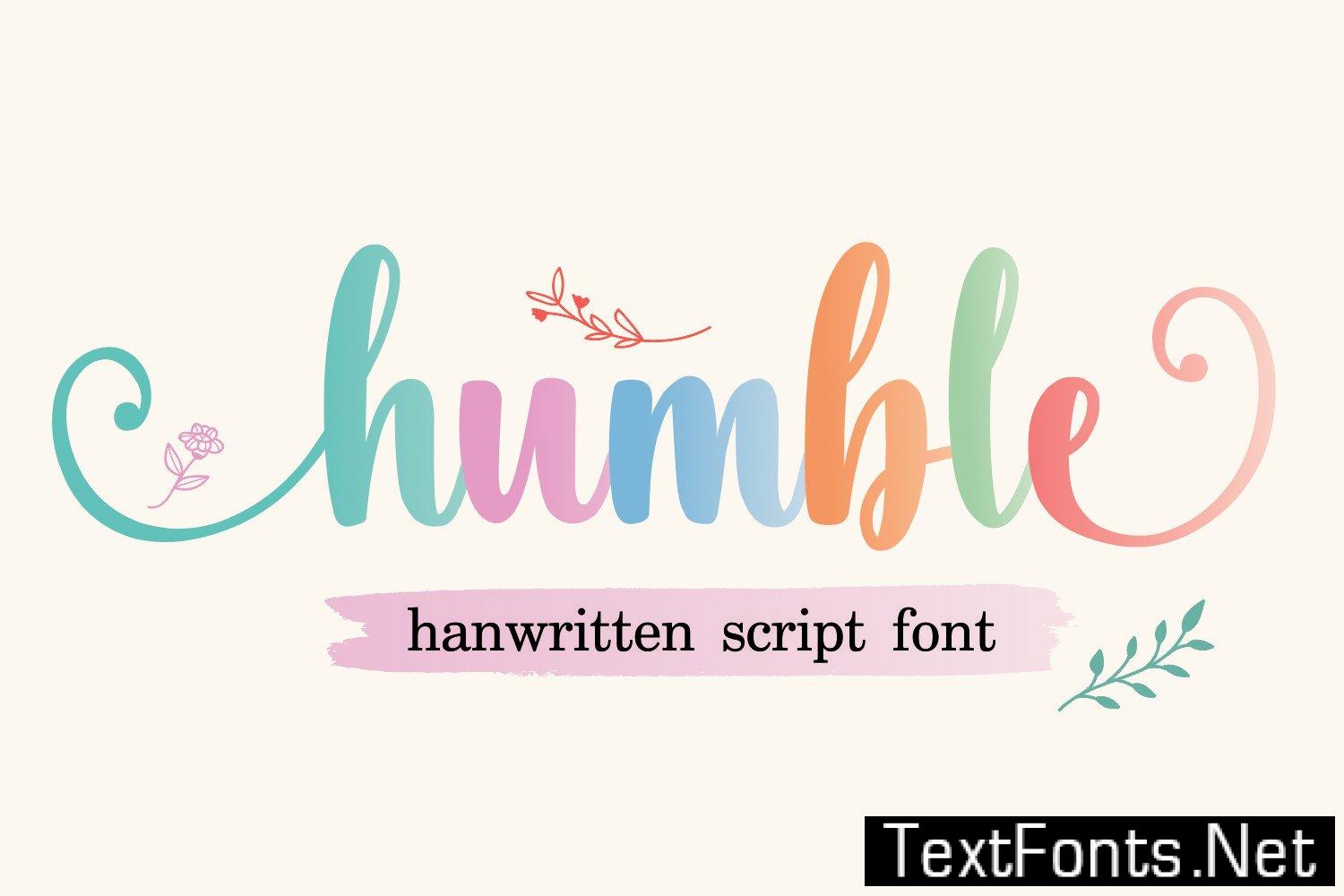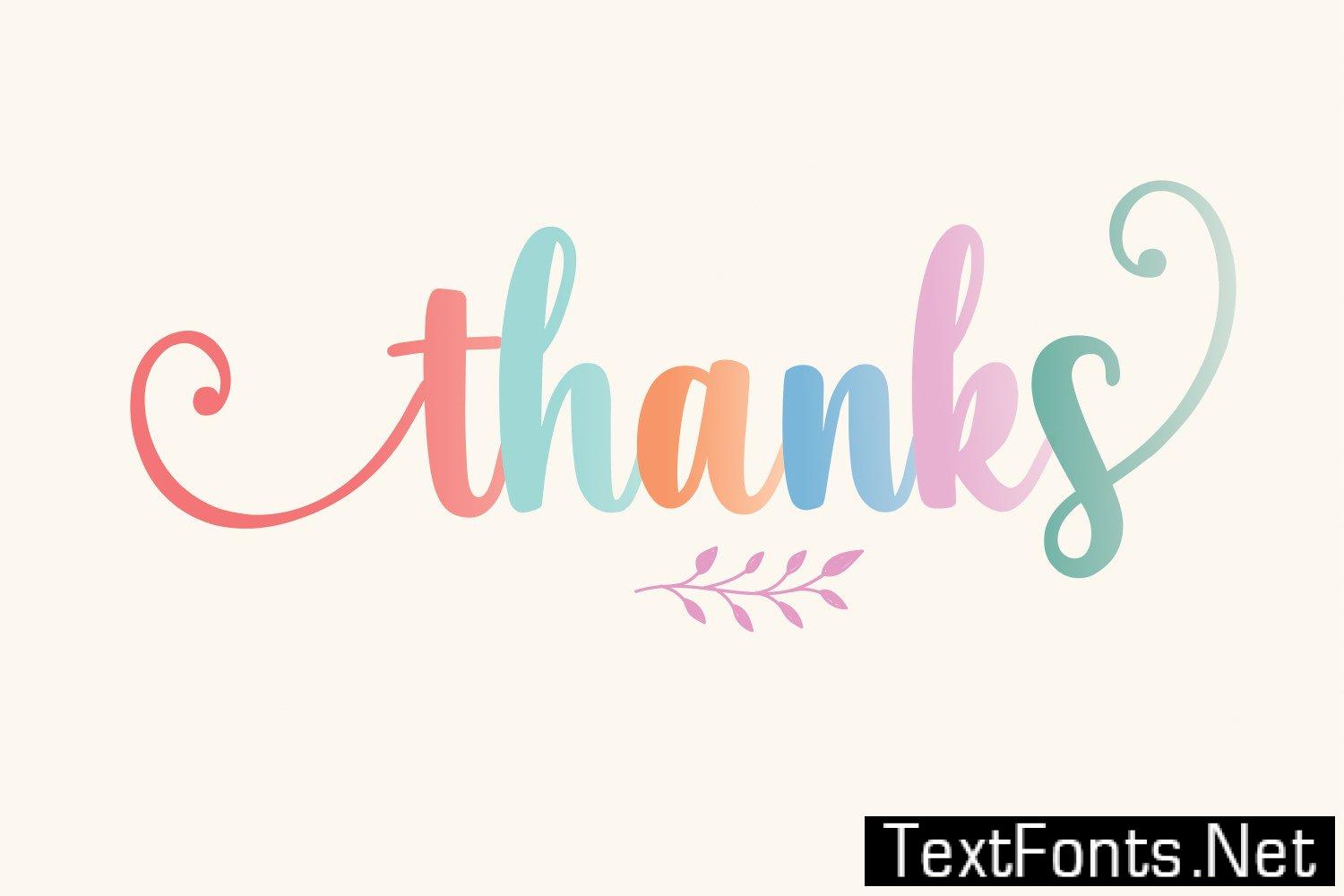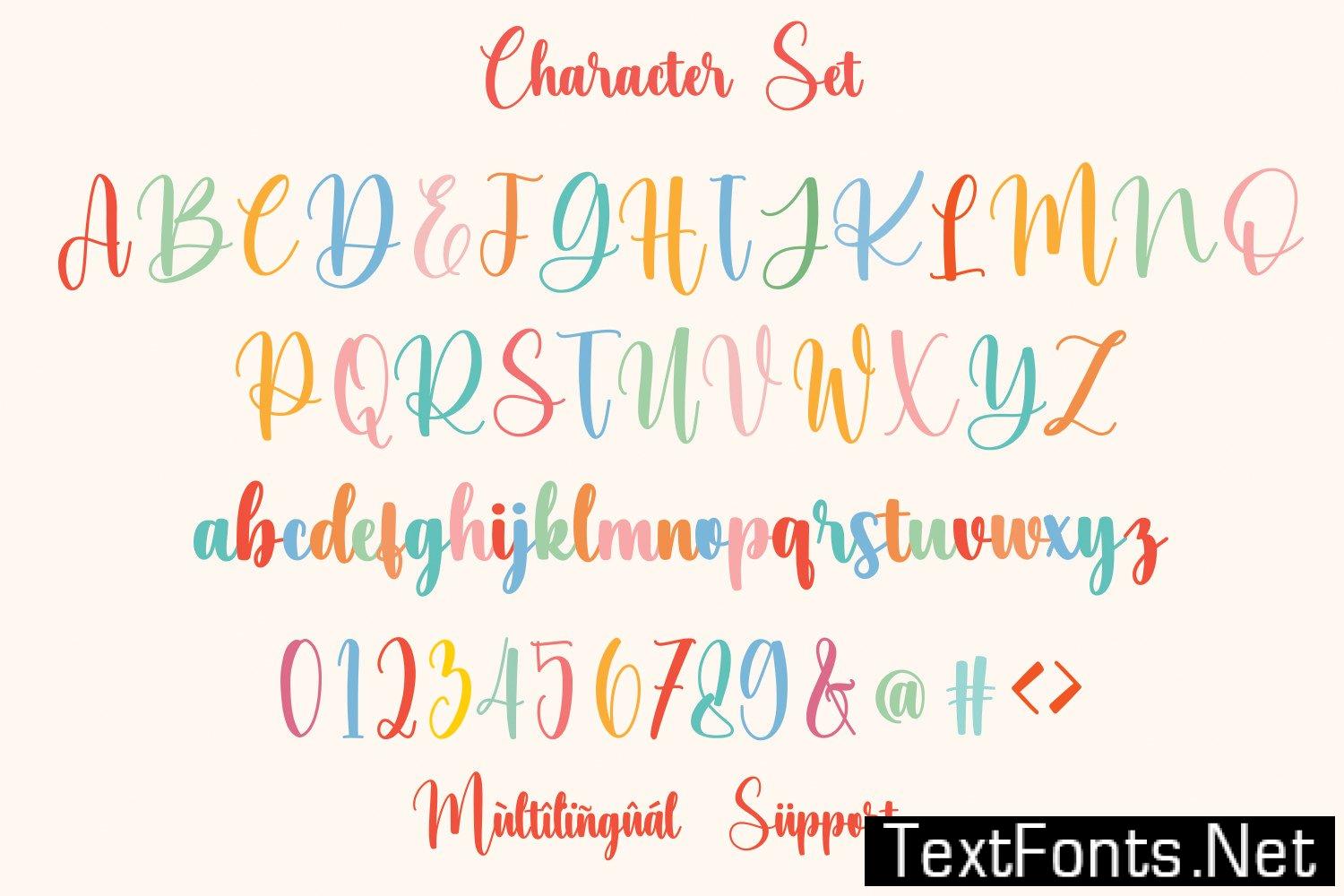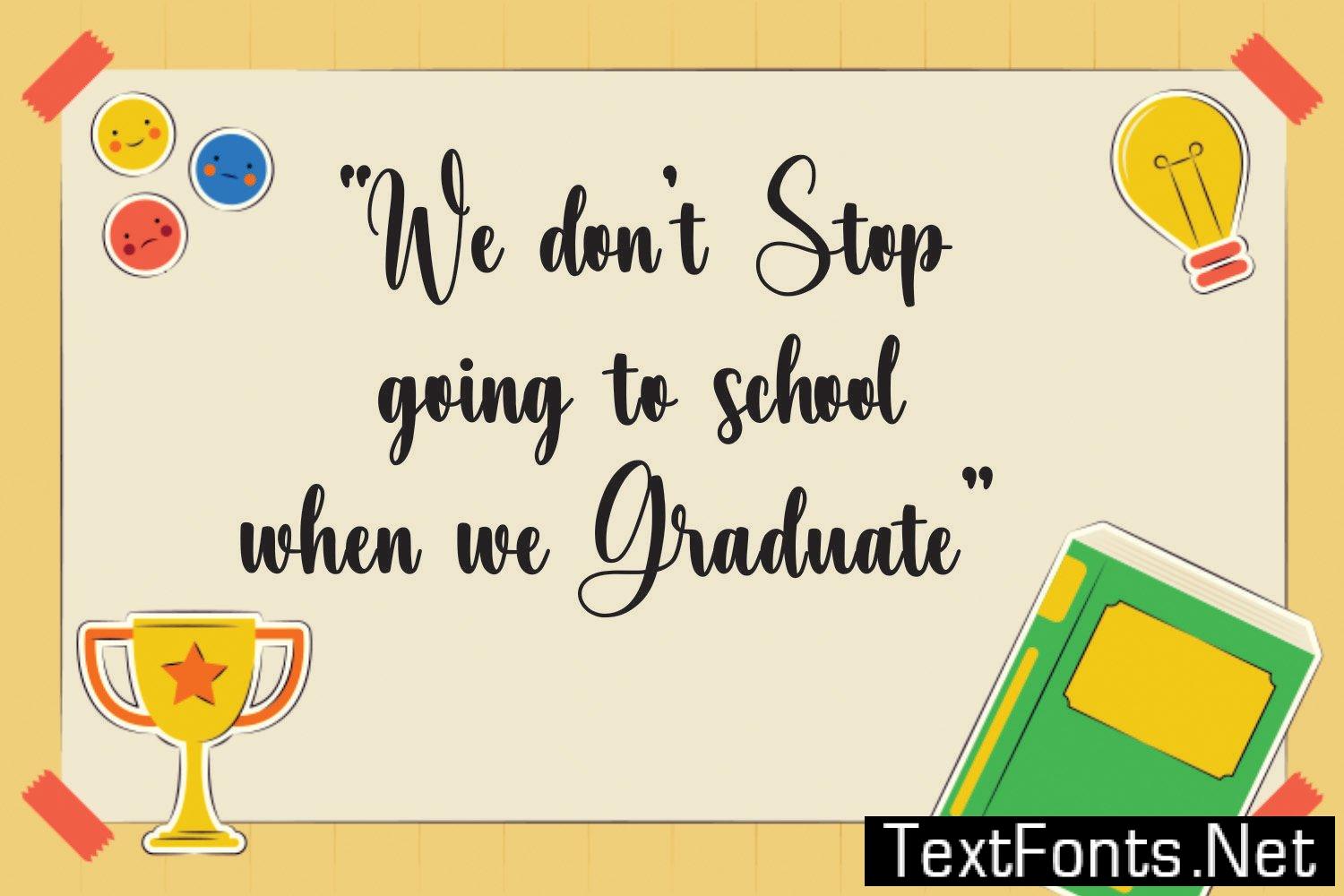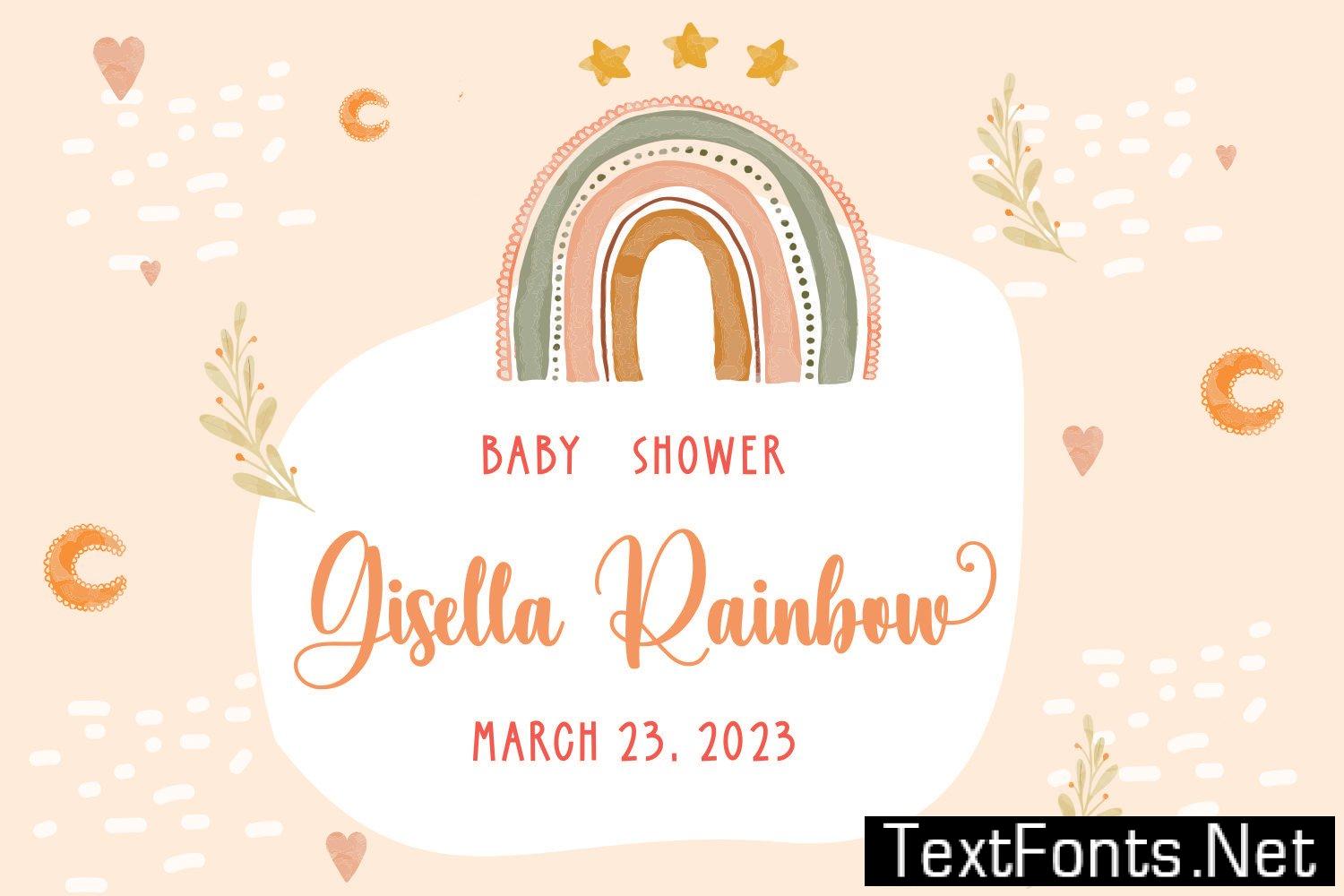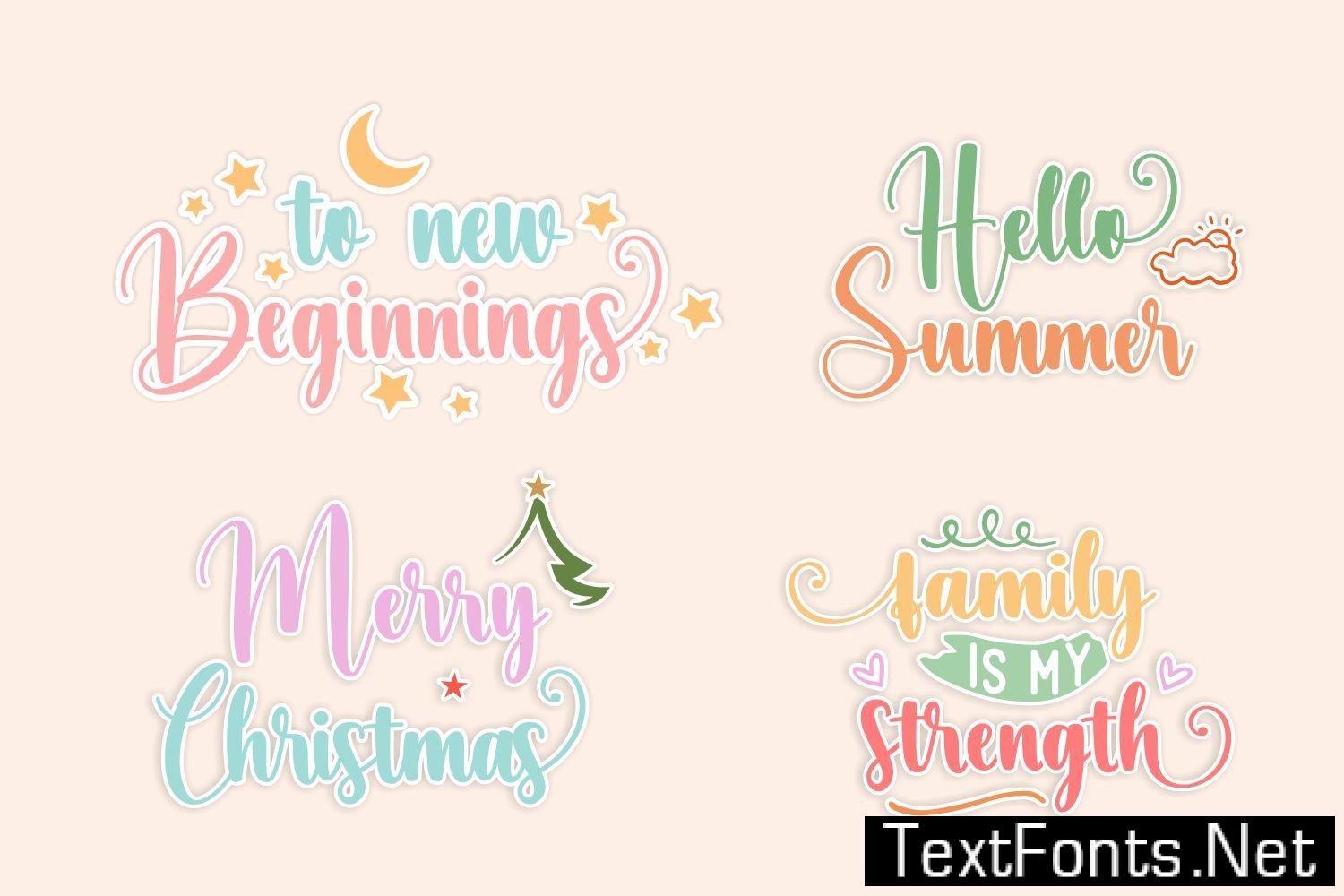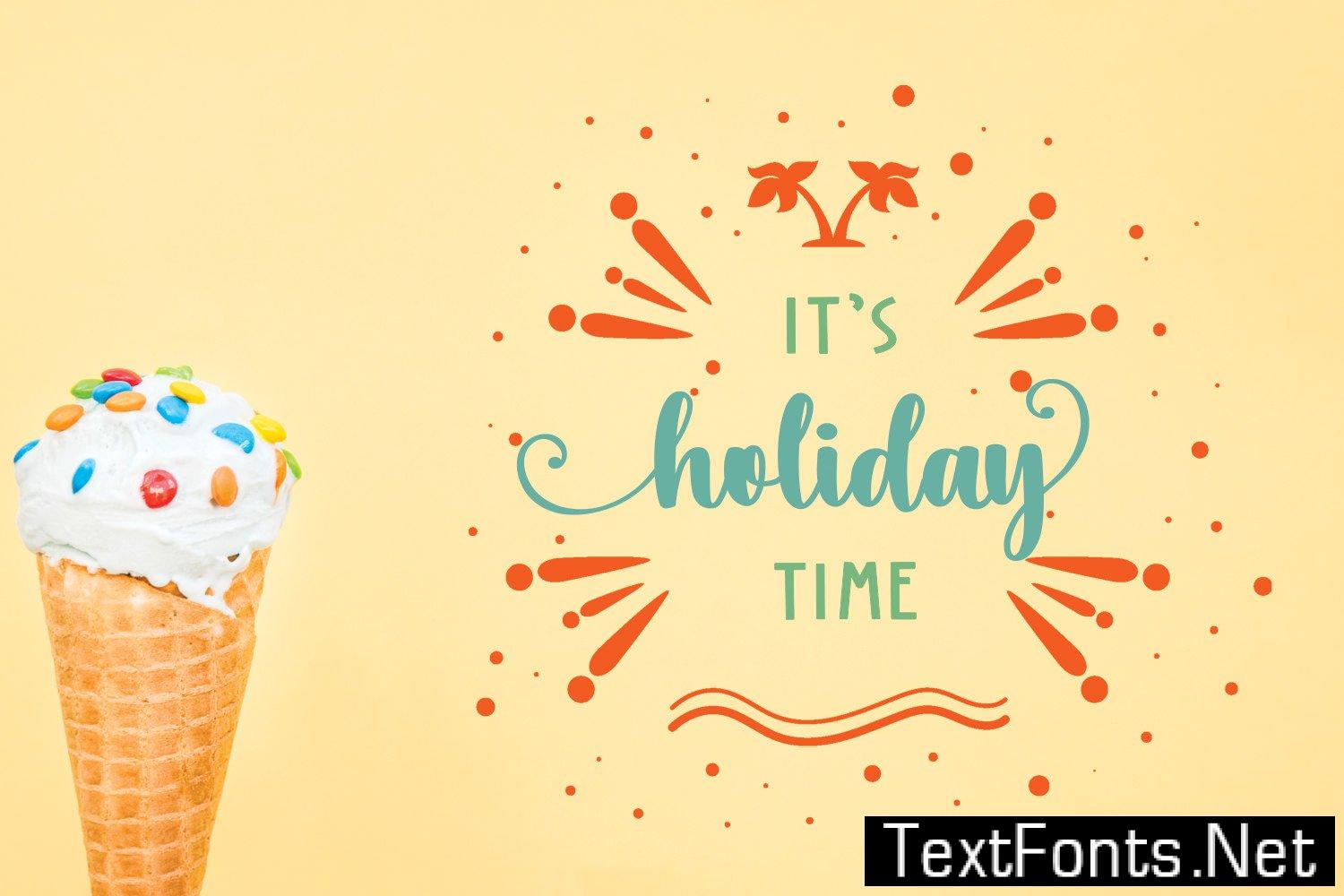
Humble is a flowing handwritten font characterized by its elegant and charming touch, making it perfect for all your favorite projects. Each letter is crafted with unique and beautiful details that bring your designs to life, adding a joyful and romantic flair to any creation.
With PUA encoding, Humble offers easy access to all glyphs, swashes, and ligatures, providing you with seamless customization options. Whether you’re designing eye-catching logos, branding materials, or engaging quotes, this font is an excellent choice for enhancing your creative work.
Humble is ideal for a wide range of applications, including wall displays, wedding invitations, social media posts, advertisements, product packaging, labels, photography, watermarks, and stationery. Elevate your projects with the sophisticated and handwritten touch of Humble, and make your designs stand out with its elegant style!